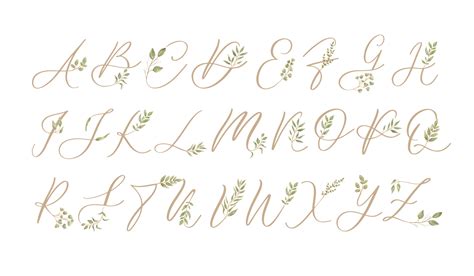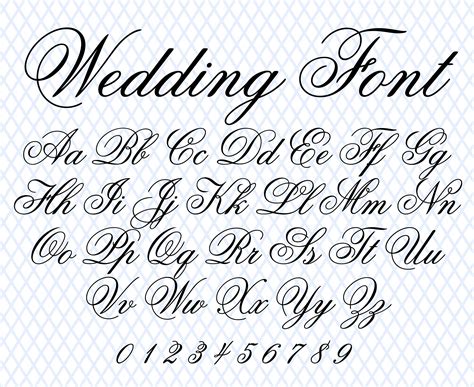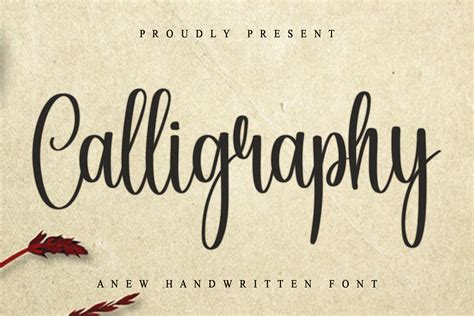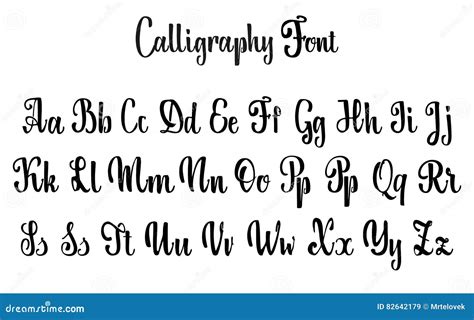
Finding the pure composition for your pattern projects can be a transformative experience, and research Calligraphy Fonts I serves as the ideal starting point for designers seeking elegance and sophistication. Composition represent as the vocalism of your marque or creative project, and chirography styles bring a human, artisanal ghost that digital-first designs frequently miss. Whether you are craft wedding invitation, advanced branding packages, or custom-made editorial layout, these scripts provide a fluid, graceful aesthetic that stands out in a crowded visual landscape. Read the nuance of these typefaces is crucial for anyone looking to bridge the gap between traditional calligraphy and modernistic digital coating.
The Evolution of Calligraphy in Digital Media
Calligraphy has evolved from the physical shot of a quill or brush into versatile digital assets. The transition from physical paper to pixel-perfect schema has allow decorator to falsify letterforms with unprecedented simplicity. When take from aggregation categorized as Calligraphy Fonts I, you are often accessing a portmanteau of historic custom and contemporaneous transmitter technology.
Key Characteristics of Modern Script Fonts
- Fluidity: The visual connection between missive mimicking natural cursive composition.
- Weight Variation: The line between thick downstrokes and thin upstrokes, reminiscent of pointed-pen employment.
- Ligatures: Custom-designed fibre combinations that ensure bland transitions between specific letter union.
- Glyph Diversity: Extended character sets that include substitute versions of letters for a more authentic, handwritten face.
Selecting the Right Script for Your Project
Choosing the right fount requires an understanding of the labor's tone. A formal case, such as a jamboree or a nuptials, demands a more restrained and authoritative approach, whereas a creative blog or lifestyle brand might benefit from a more playful, energetic book.
| Project Eccentric | Calligraphy Style | Ideal Use Case |
| Formal Stationery | Copperplate/Spencerian | Wedding Invitations, Diplomas |
| Brand Identity | Modern Brush Script | Logos, Apparel, Box |
| Editorial Design | Casual Penmanship | Pull-quotes, Headers, Social Media |
💡 Tone: When work with high-contrast book fonts, ensure your line pinnacle is adjusted consequently to debar overlap stroke between text line.
Techniques for Optimal Readability
While the aesthetic value of calligraphy is eminent, readability can sometimes become an issue if the typeface is overly complex or densely packed. Architect must strike a balance between stylistic flair and functional communication. Always test your elect case at smaller point sizing to ensure that fragile loops and flourishes do not dissolve into illegibility on mobile blind.
Best Practices for Implementation
- Pairing: Ne'er compound two heavy scripts in one layout. Pair a complex penmanship baptistry with a light, impersonal sans-serif or serif font for proportionality.
- Kerning: Manually adjust the spacing between lineament if the machinelike software settings ensue in awkward gaps.
- Contrast: Use a high-contrast coloring pallet, such as deep charcoal on cream theme, to stress the stroke weight divergence.
Integrating Calligraphy into Branding
Using Penmanship Fonts I within a corporate individuality can humanise a make. It propose legitimacy and personal attending to item. Yet, easing is key. A script baptistery should ideally serve as an emphasis piece - a focal point for a logo or a header - rather than a body text choice. By utilize these playscript meagrely, you require the viewer's attention and create a hierarchy of info that manoeuvre the subscriber's eye course through the design.
The versatility of script-based typeface countenance designer to inject personality and gracility into almost any ocular communication part. By carefully selecting your typeface based on project necessity, adhering to professional pairing techniques, and prioritise the proportionality between style and legibility, you can raise your blueprint work importantly. Remember that the end of use these expressive case is to raise the content, so always guarantee the aesthetic flourishes complement preferably than blur your purport. Embrace the nicety of these diverse fonts will doubtless render a more polished and compelling solution for your typography-driven undertaking.